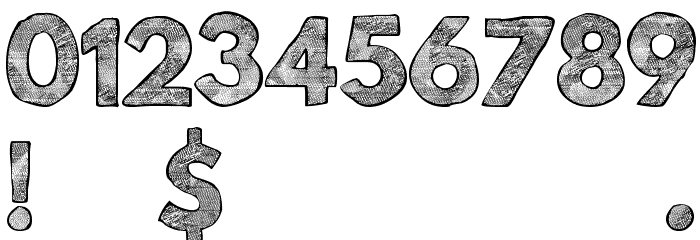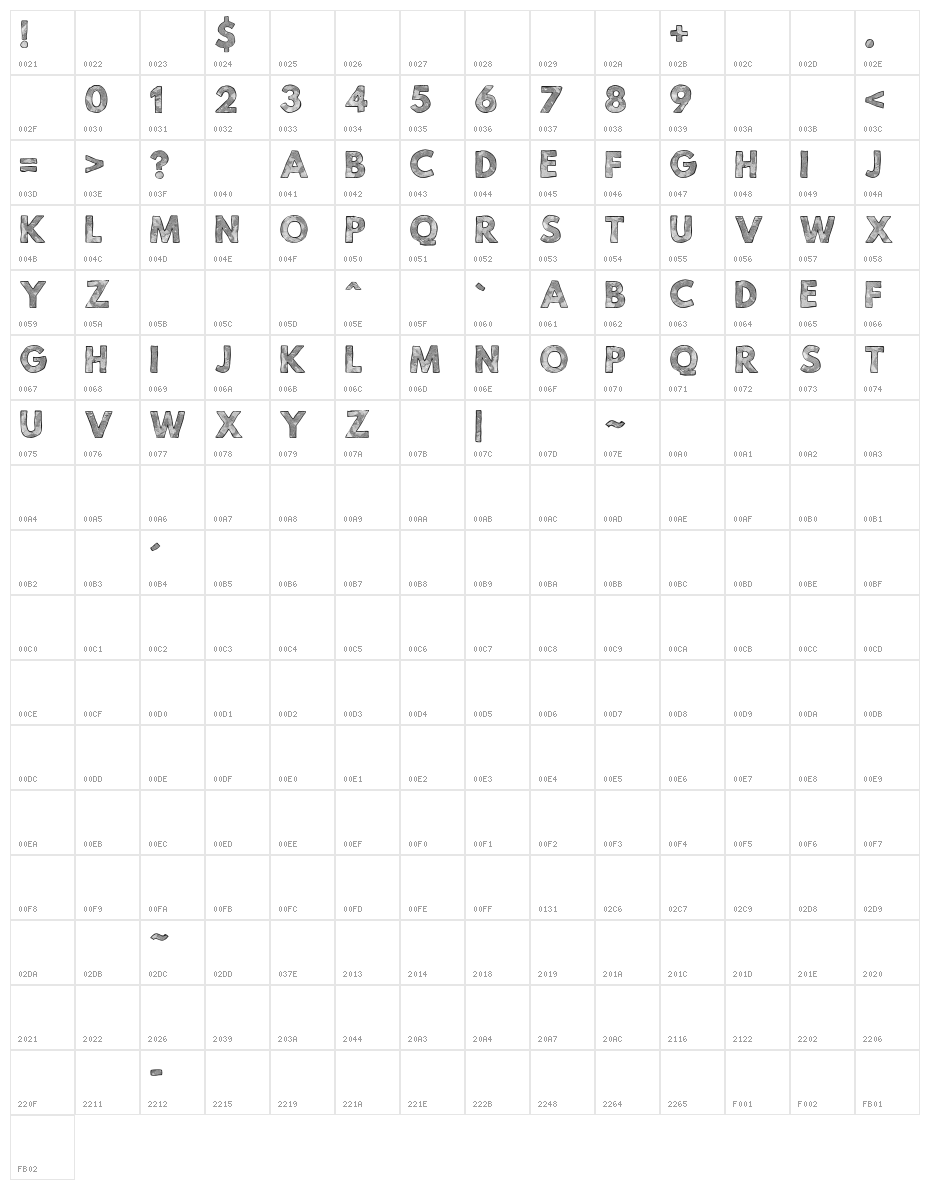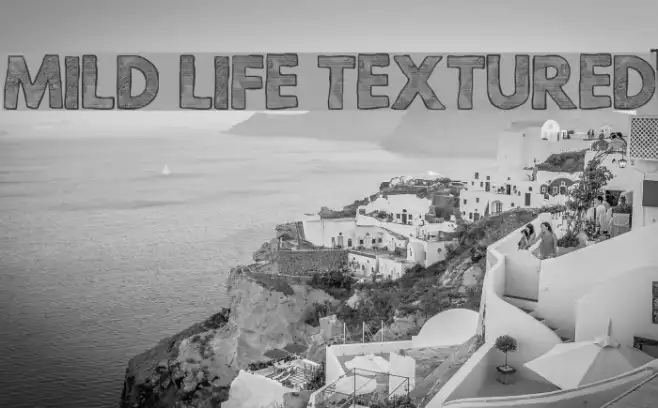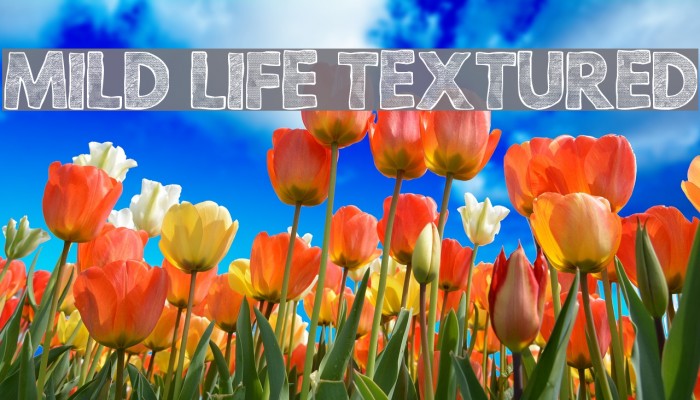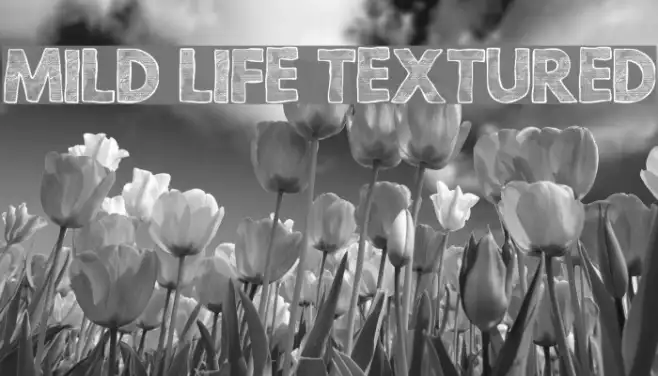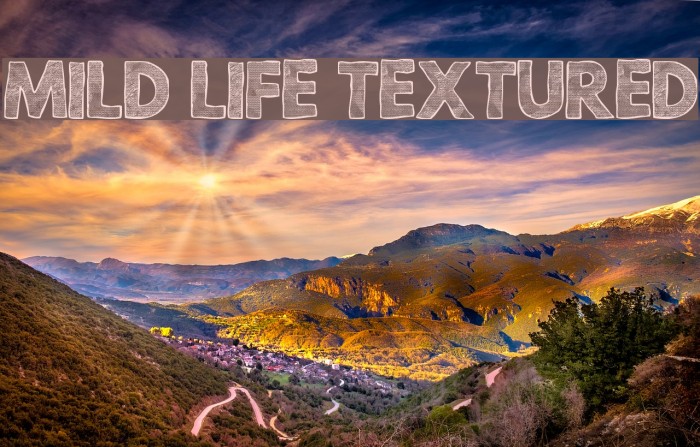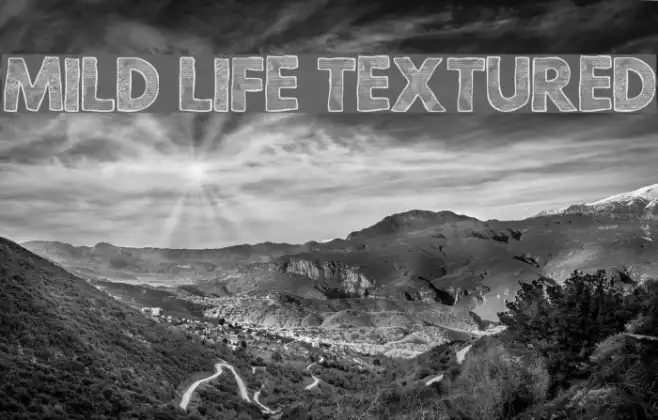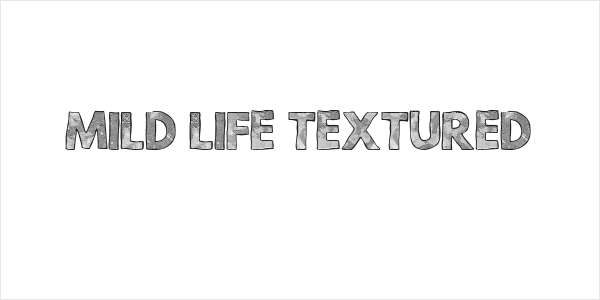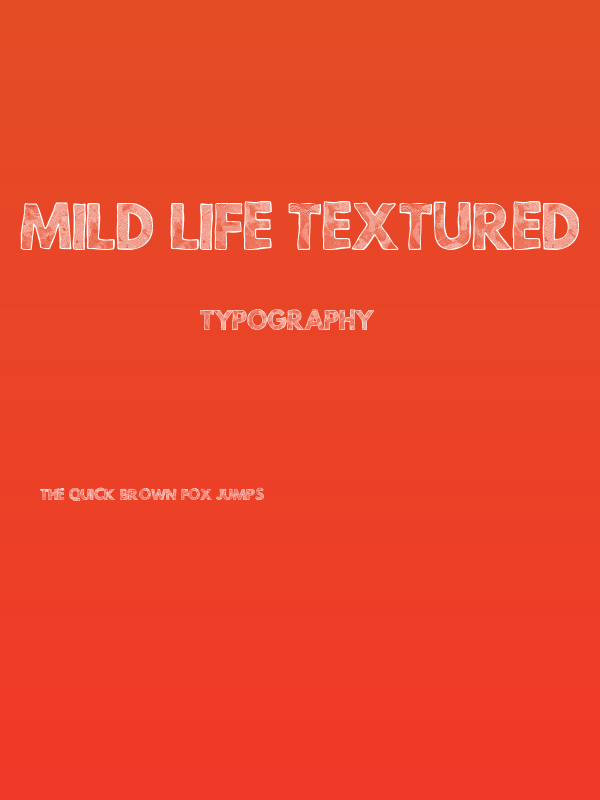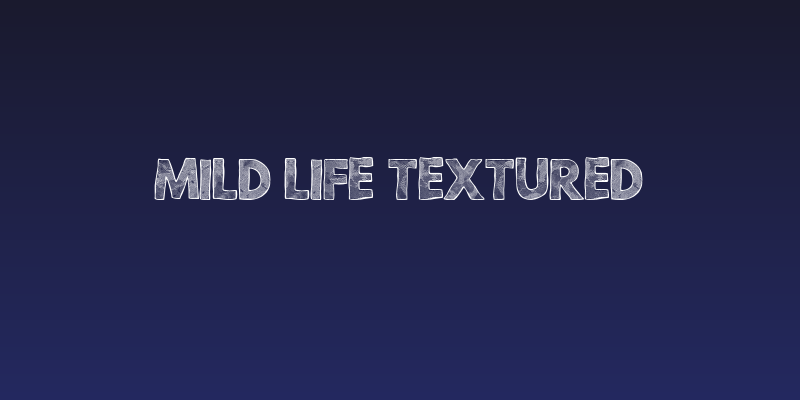
Mild Life Textured Font
Mild Life Textured Description
This font features a bold, textured style that gives it a hand-drawn, artistic appearance. The letters are uppercase and have a consistent thickness, with a rough, sketch-like texture that adds depth and character. The numbers and special characters follow the same design, ensuring a cohesive look across all elements. The texture provides a vintage feel, making it suitable for projects that require a rustic or handcrafted aesthetic. Despite its decorative nature, the font maintains good readability, making it versatile for various design applications.
| Proposed Projects | Ideal for posters, branding, packaging, and any design needing a handcrafted touch. |